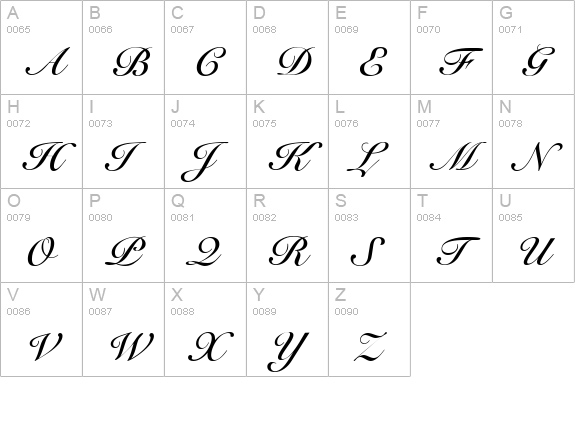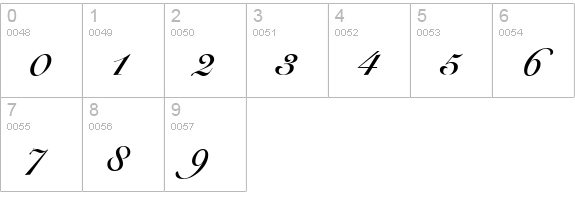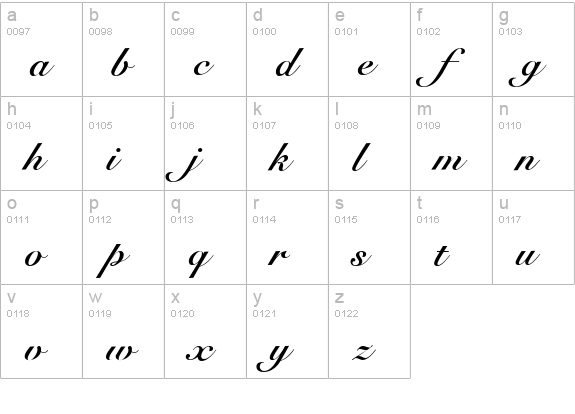
R791-Script-Bold Font Details
R791-Script-Bold is a strong, high-contrast variant in the R791 typeface family \xE2\x80\x94 well suited to headlines, attention-grabbing titles, and strong calls-to-action.
R791-Script-Bold is a stylish and modern font that adds a touch of sophistication to any design project. With its bold and elegant script style, this font is perfect for creating eye-catching headlines, logos, invitations, and more. The flowing lines and graceful curves of R791-Script-Bold give your text a unique and artistic flair that is sure to impress. Best of all, this font is available for free download at FontsMarket.com, making it accessible to anyone looking to elevate their design work with a touch of elegance. Grab your copy today and start adding a touch of luxury to your projects with R791-Script-Bold!